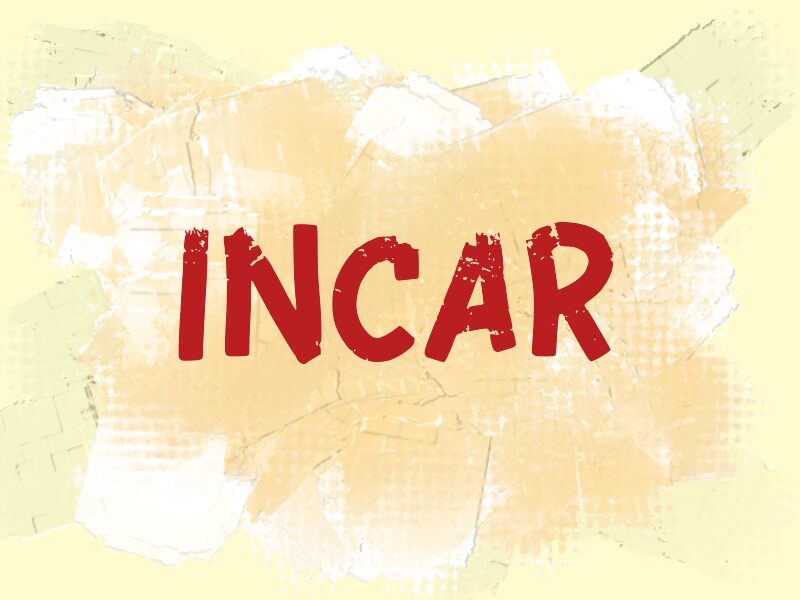
Incar
Incar font designed by wep is a bold display eroded script font with breathtaking distressed letters. It has both a textured and expressive character inspired by an expressive handwriting style, giving it the unique retro aura which would work for standout visual presentations.
The casual font has that charming handcrafted look needed to create many artistic and design work. Use it for posters, packaging, logos, or branding projects like social media posts. Additional use cases include book covers, movie titles, album covers, ads banner designs titles on websites and blogs among others.